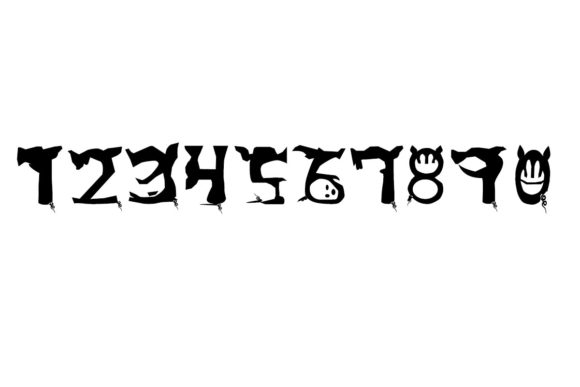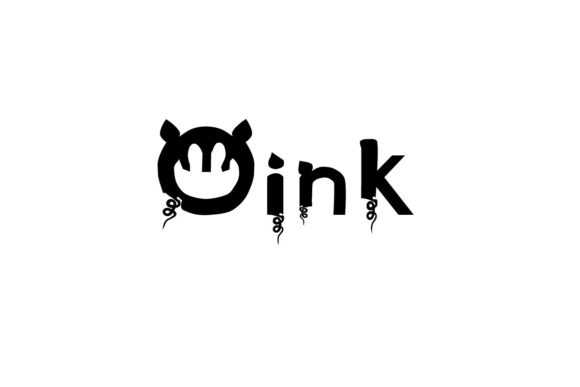
Introduction to Piggy Mania Font
Have you ever stared at a blank page, brainstorming ideas for a creative project, only to have a playful character pop into your head? For many designers, that moment of inspiration can come from the unlikeliest of places. For those who love animals, especially pigs, the Piggy Mania Font is the perfect spark to ignite your imagination.
This charming decorative font is designed to bring a smile to your face, with letters sporting adorable tails and numbers shaped like pigs. Whether you’re working on a design project that requires a fun and whimsical touch or simply want to add some personality to your social media posts, the Piggy Mania Font is a valuable resource that’s sure to deliver.
Piggy Mania Font
- High-quality design resource ideal for creative projects, offering a unique and playful touch.
- Designed to be versatile, Piggy Mania Font is perfect for a wide range of creative projects, from branding and advertising to digital media and print materials.
- Unique characteristics, such as exaggerated letterforms and bold lines, make Piggy Mania Font stand out in creative projects and add a touch of personality to designs.
Honest Review: Piggy Mania Font
I recently came across the Piggy Mania Font while searching for free design resources to enhance my creative project. As a designer, I appreciate high-quality fonts that can elevate the visual appeal of any design. After using the Piggy Mania Font, I’m excited to share my honest review.
- Unique and playful design: The Piggy Mania Font offers a fun and quirky vibe that’s perfect for creative projects.
- Limited character set: The font may not support all languages or special characters, which can be a limitation in certain design contexts.
Overall, I think the Piggy Mania Font is a great addition to any designer’s toolkit, especially for personal projects or designs that require a playful touch. Its high-quality vector graphics and transparent background make it a versatile design resource. However, its restricted usage and limited character set are notable limitations to consider.
Using Piggy Mania Font in Creative Projects
Tips for Getting the Most Out of Piggy Mania Font
For the best results, use Piggy Mania Font with a transparent background and experiment with different font sizes and colors to add visual interest to your design.